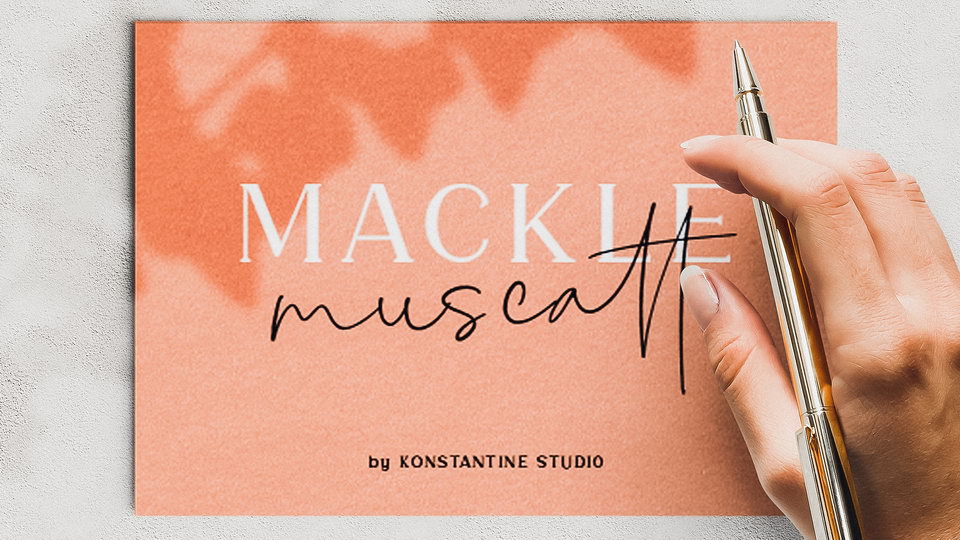
Download Mackle Script font, a stylish signature typeface, carefully crafted to be the best pair for your sweetest branding needs. Full version includes a pair of contrast serif and loose handwriting fonts.
Designer: Konstantine Studio